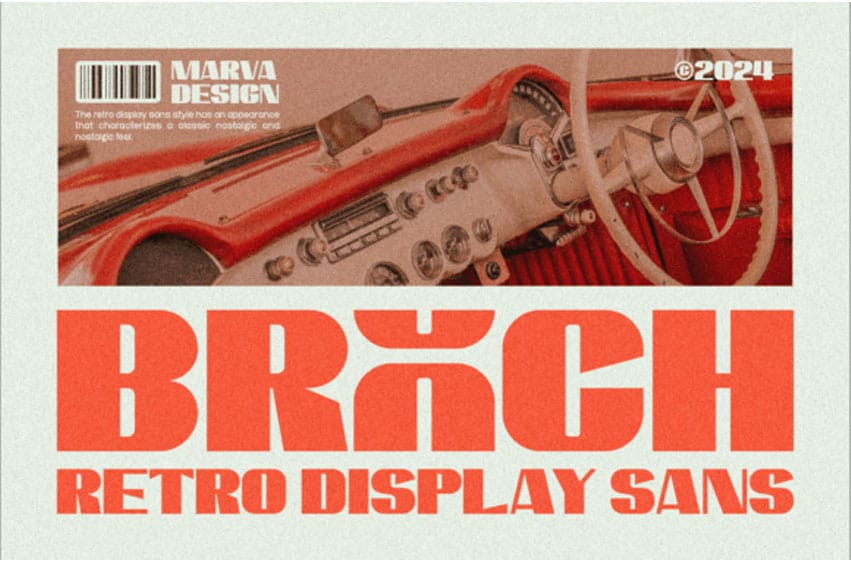
Brooch Font is a Retro Display Sans is a stylish and bold font inspired by old-fashioned designs. It’s perfect for making eye-catching titles, posters, and signs.
The letters are clean and simple, yet have a vintage feel, making your text stand out with a nostalgic charm.